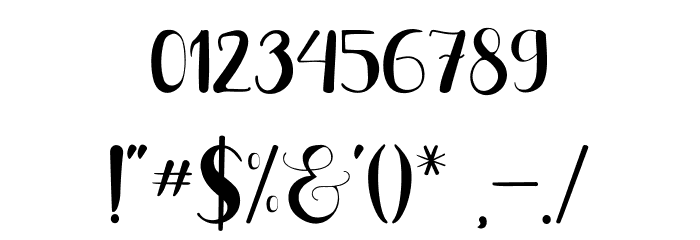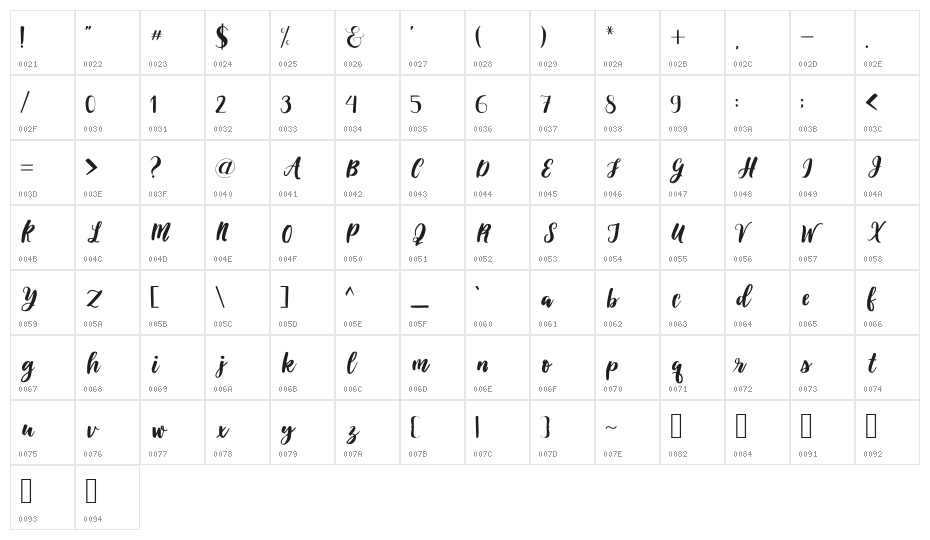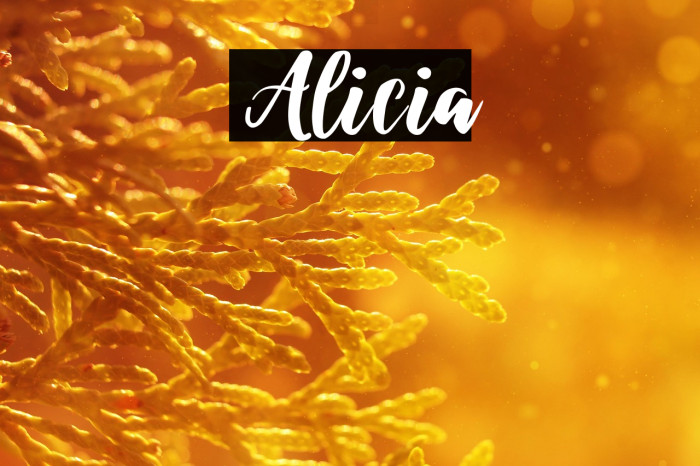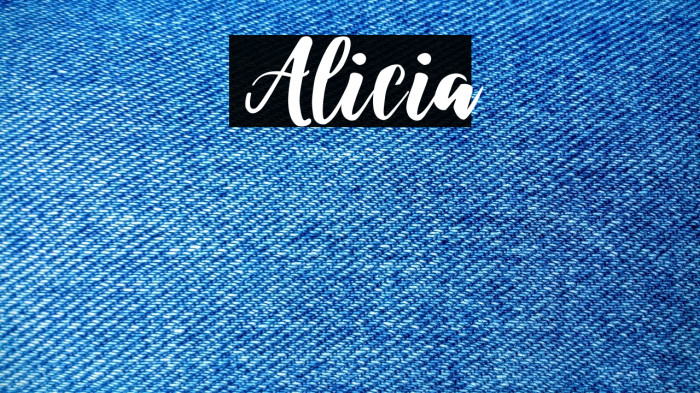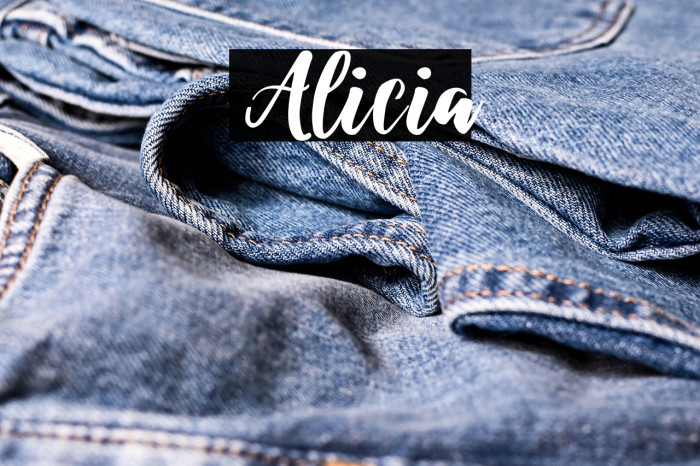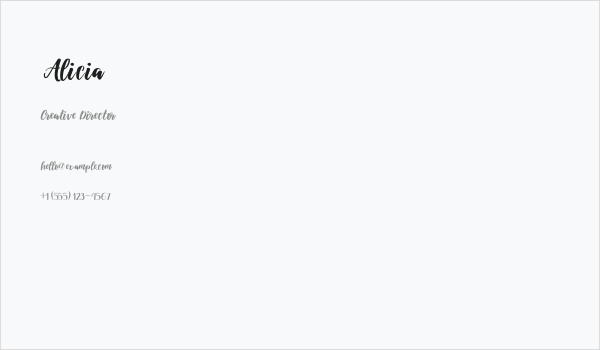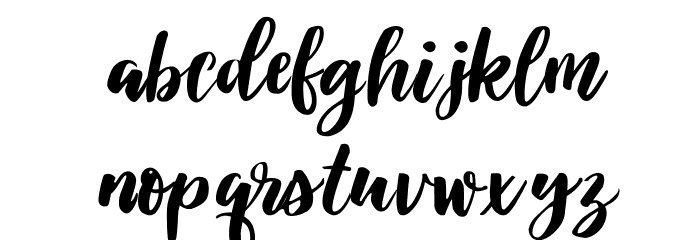
Alicia Font
Alicia Description
This font exudes a lively and elegant script style, characterized by its flowing, cursive letterforms. The uppercase letters are bold and sweeping, with intricate loops and flourishes that add a touch of sophistication. The lowercase letters maintain a consistent rhythm, with smooth connections between characters, enhancing readability while retaining a decorative flair. The numerals are distinct and easy to read, complementing the overall aesthetic. Special characters are thoughtfully designed, integrating seamlessly with the rest of the typeface. This font is perfect for projects that require a personal, handwritten touch.